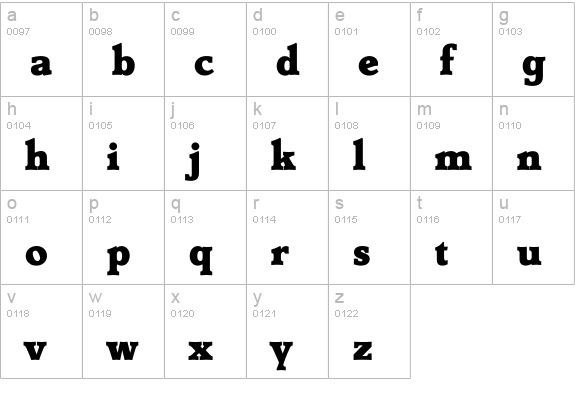
Derrin Heavy is a heavy, high-impact variant in the Derrin typeface family \xE2\x80\x94 well suited to high-impact headlines, posters, and display advertising.
Derrin Heavy font is a bold and impactful typeface that exudes strength and confidence. Its thick lines and sharp edges make it perfect for headlines, titles, and other display purposes. The sturdy and commanding presence of Derrin Heavy commands attention and leaves a lasting impression on the reader. The best part about Derrin Heavy font is that it is available for free download at FontsMarket.com. This means that you can easily access and use this powerful font in your projects without any hassle or cost. Whether you're designing posters, logos, or any other creative work, Derrin Heavy font is sure to make a statement and elevate your designs to the next level. Download Derrin Heavy font today and unleash its bold and formidable character in your projects.